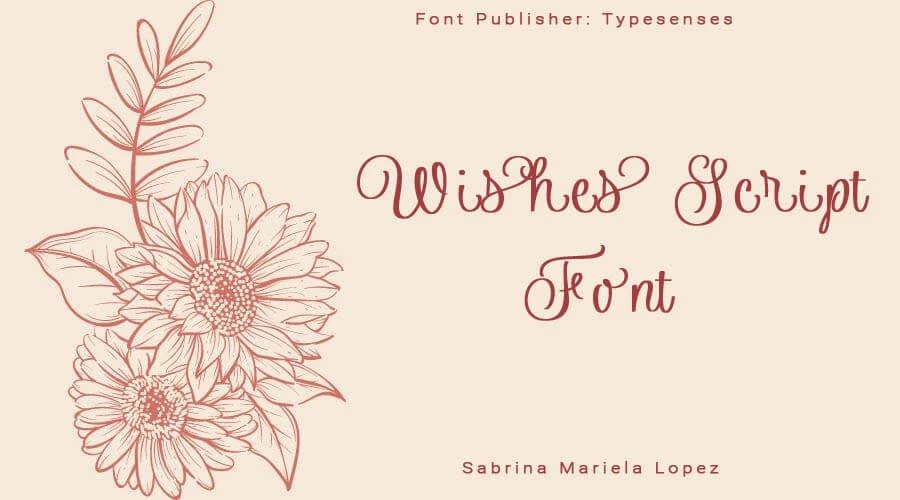
Wishes Script is a calligraphy typeface font family designed by Sabrina Mariela Lopez and published through Typesenses. With 18 styles, Wishes Script is a very attractive and eye-catching font. This curving typeface supports up to 14 OpenType features. For its display and text styles, the flowing curves work great in both small and big formats.
- On Design: This font is compatible with every type of design work. This gorgeous typeface makes your greetings, wedding, or birthday invitations more beautiful. You can also use it for posters, magazines, fashion design, or outstanding packaging.
- YouTube: If you’re a YouTuber then you can enrich your thumbnail using this font.
- Logo: This font is also very suitable for logo design. People who like calligraphy-type logos can use this font.